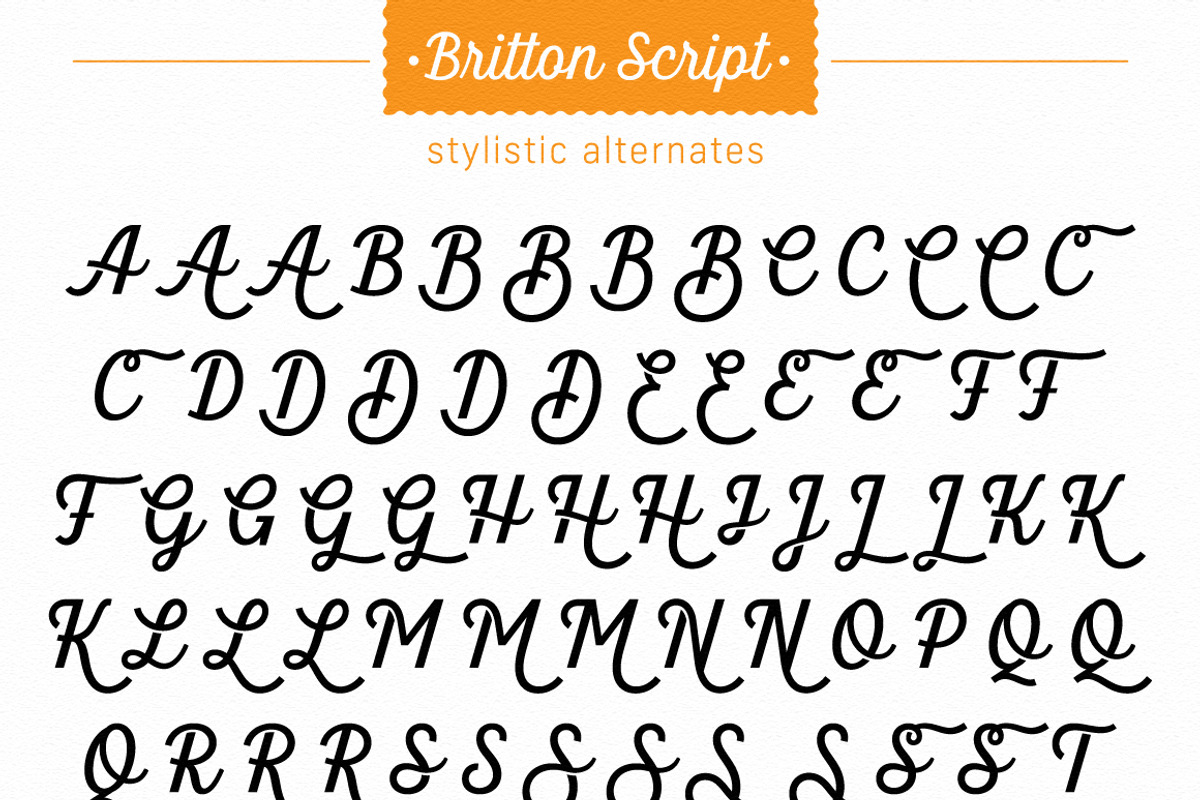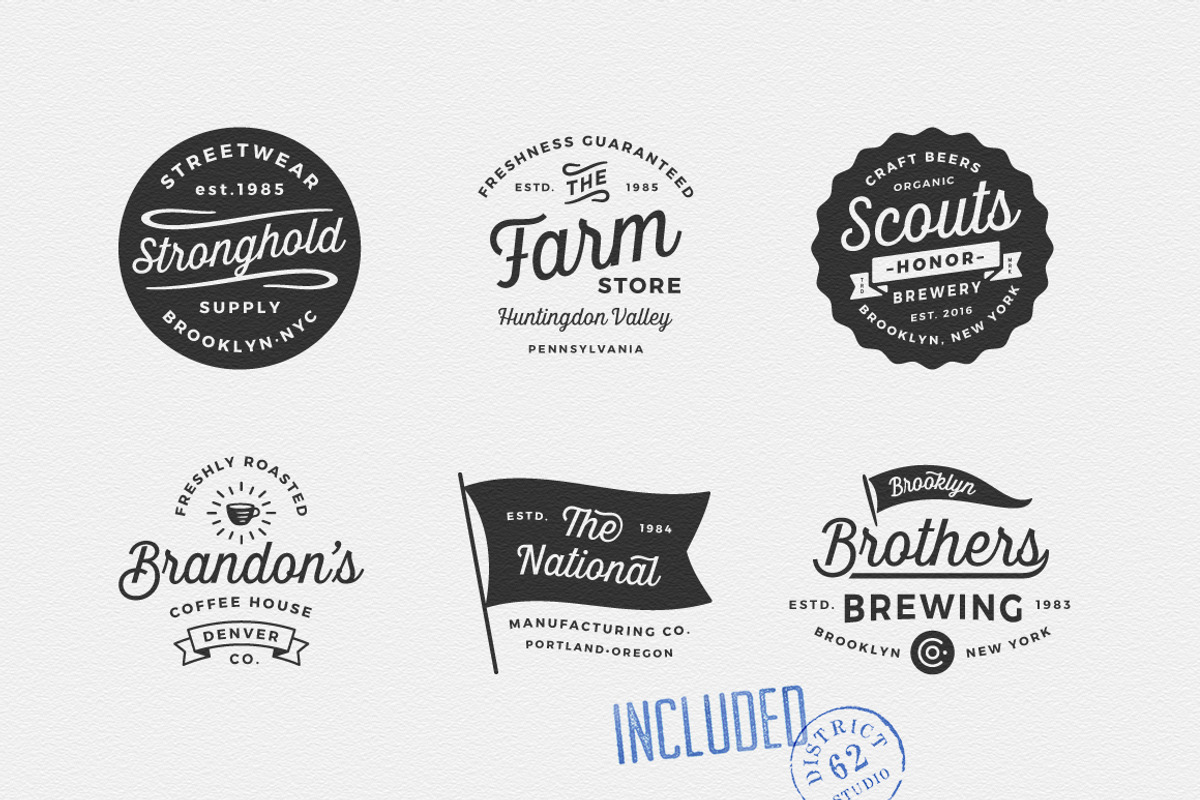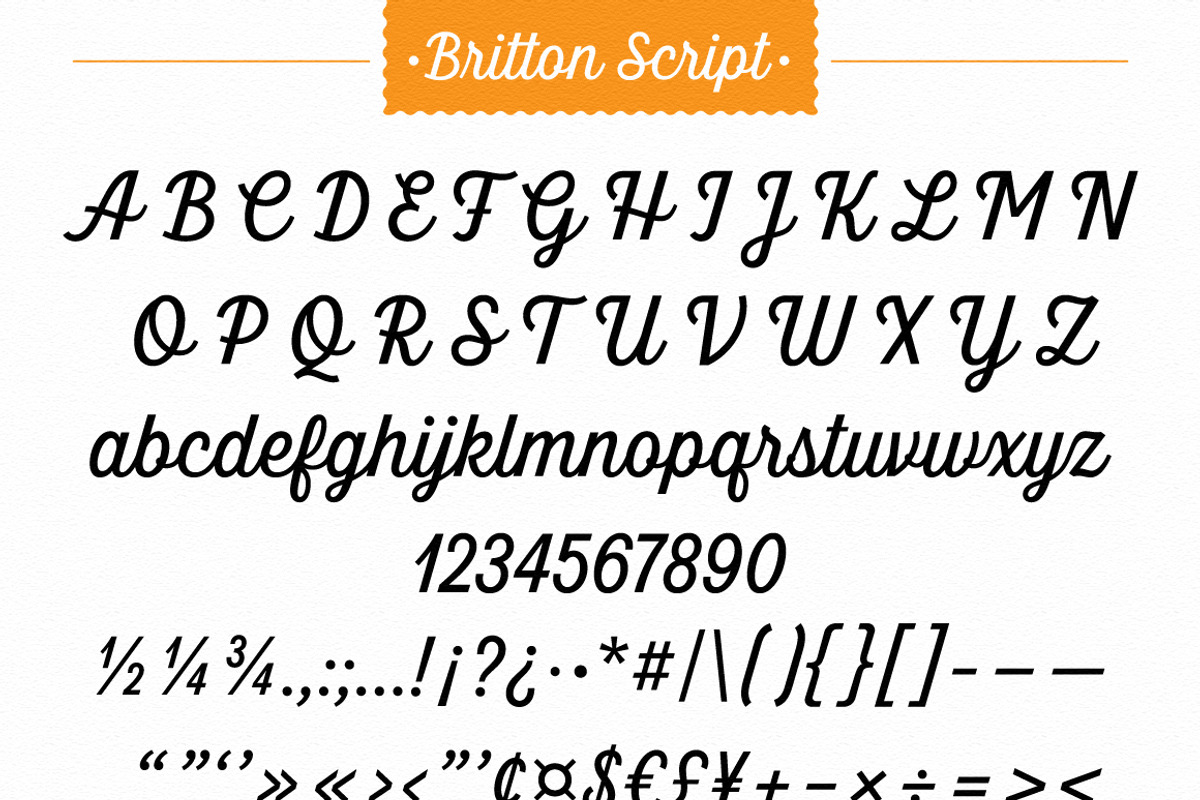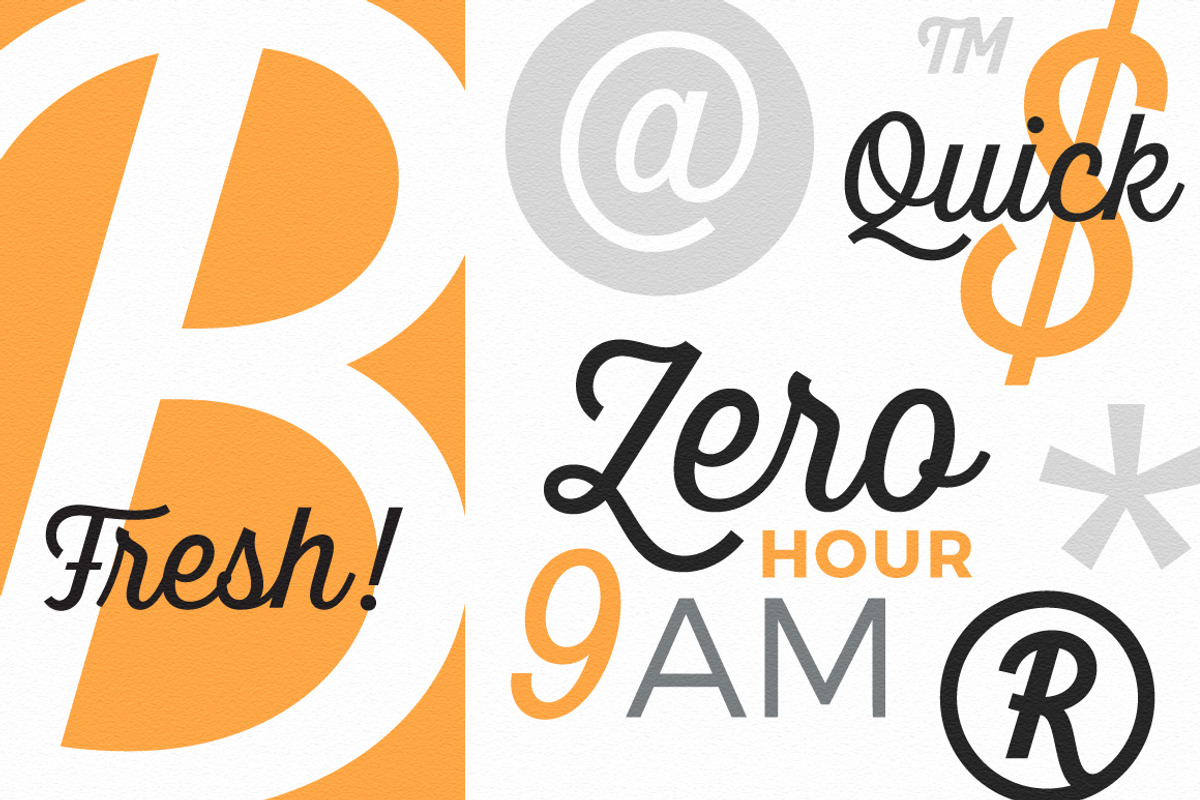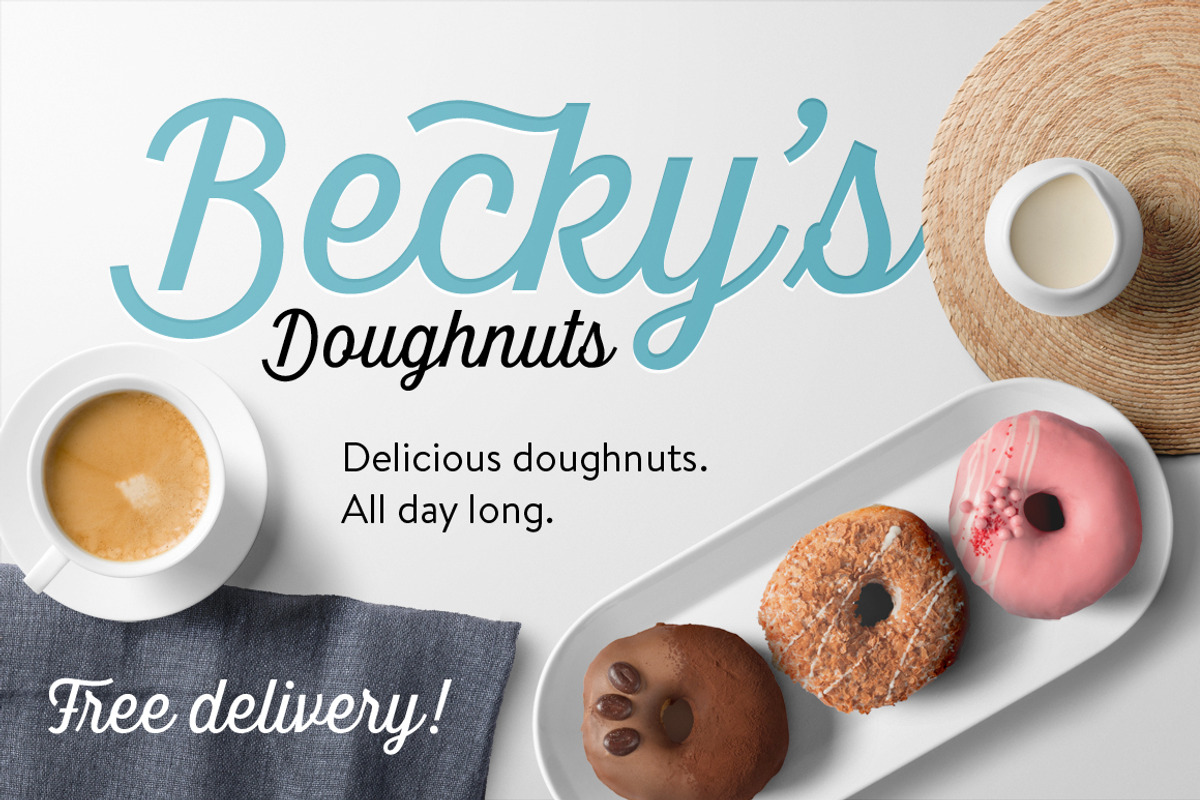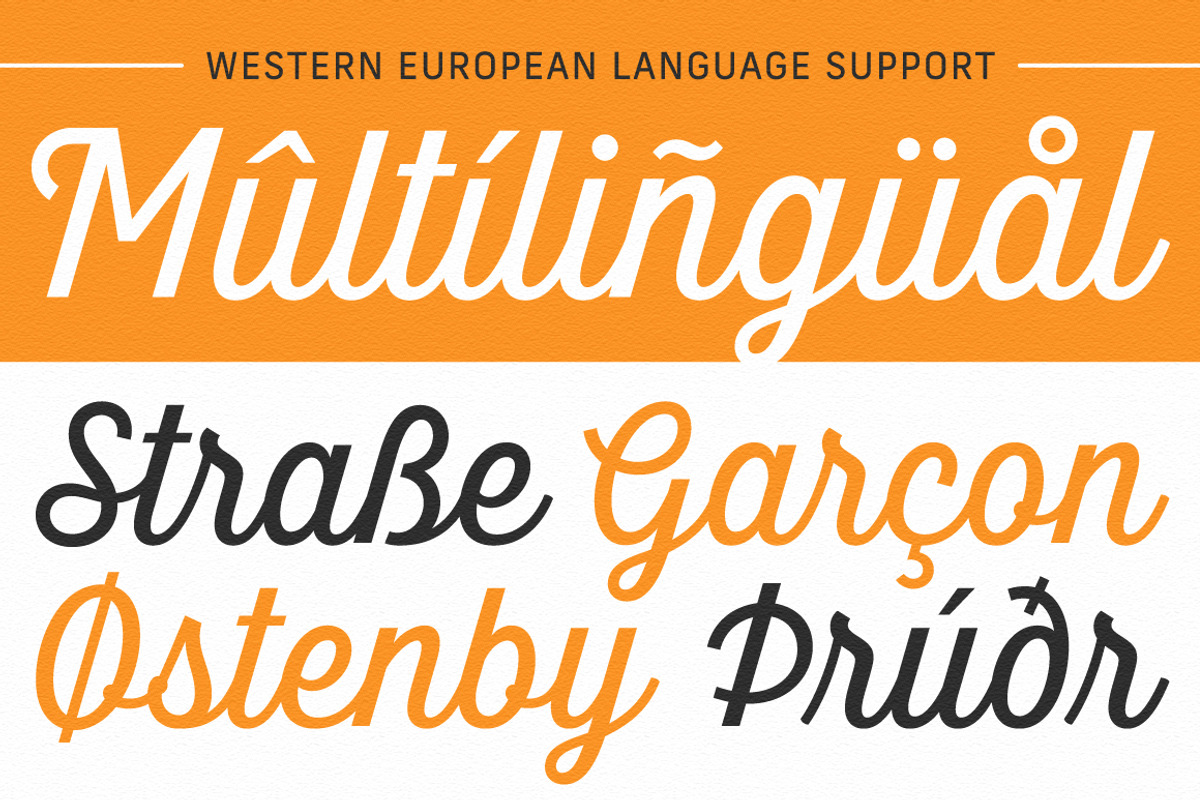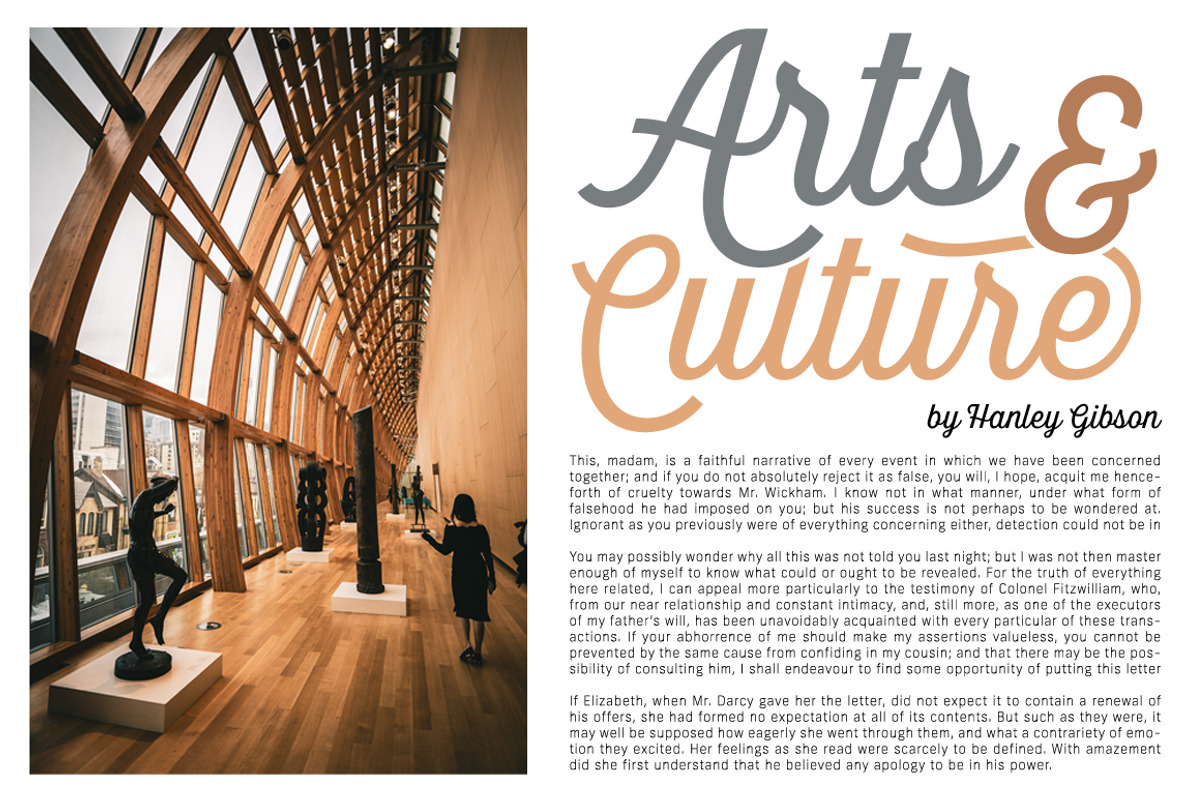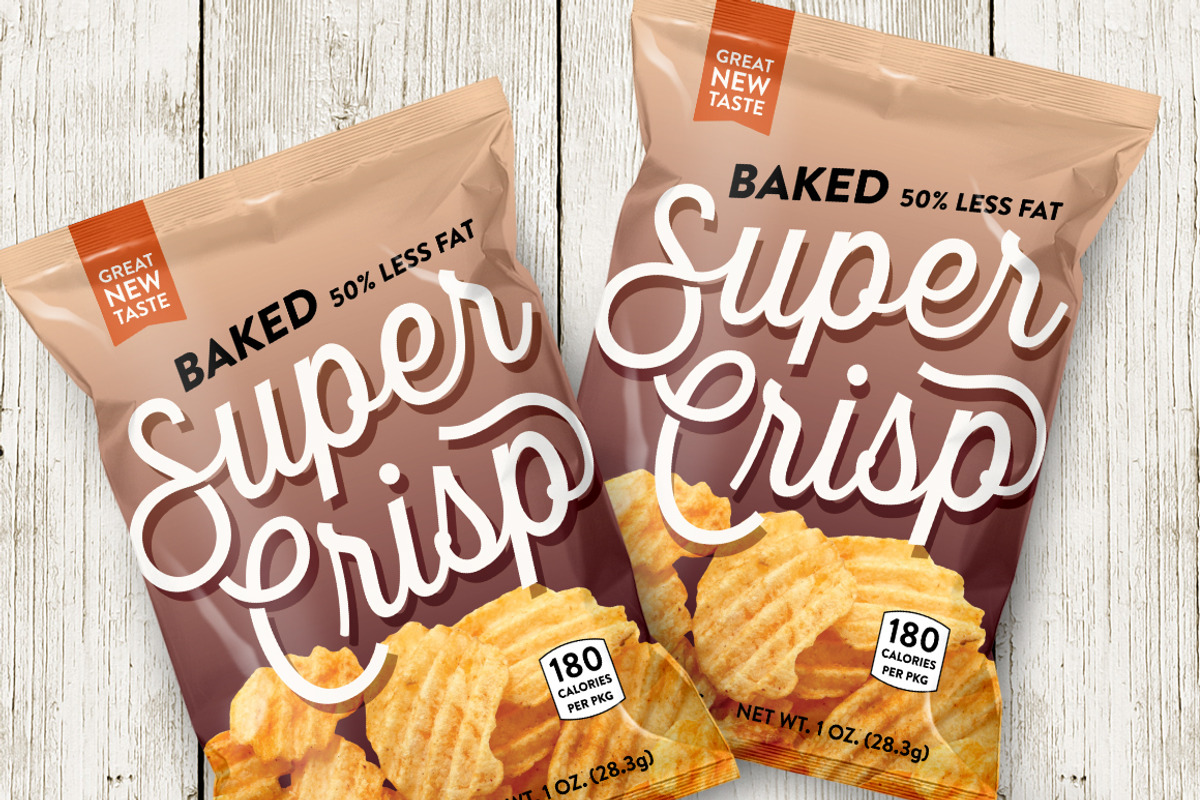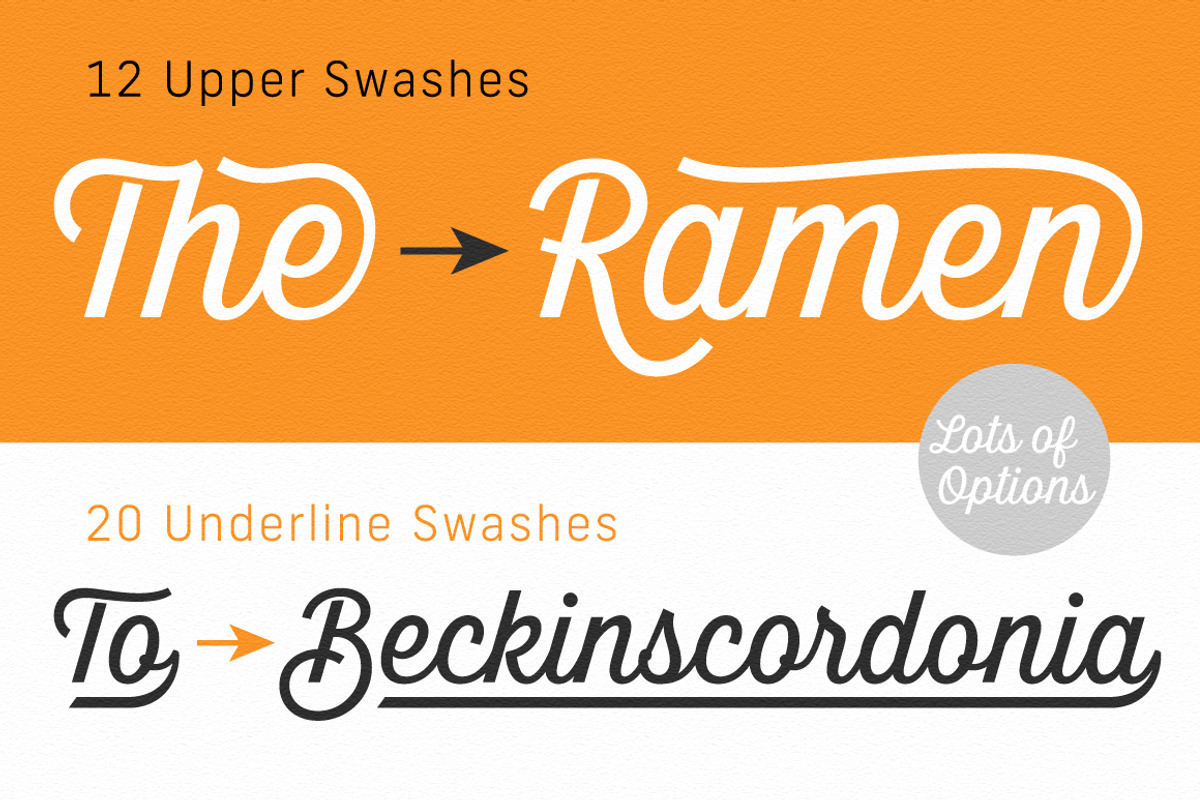
Britton Script
INTRODUCING BRITTON SCRIPT WITH 6 BONUS LOGOS
BRITTON SCRIPT is a versatile script font with plenty of swashes and stylistic alternates that allow you to create unique designs that a work beautifully for headlines, logos, packaging and more. Britton can feel modern or vintage and reads well both as a large display font or in smaller body text. Check out the previews to see more.
- 32 Swashes
- 89 Stylistic Alternates
- 184 Ligatures
- Western European Language support.